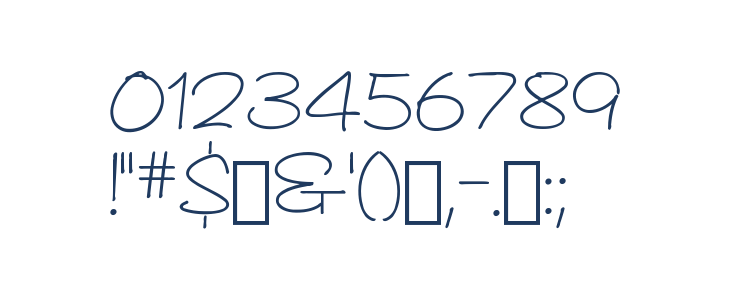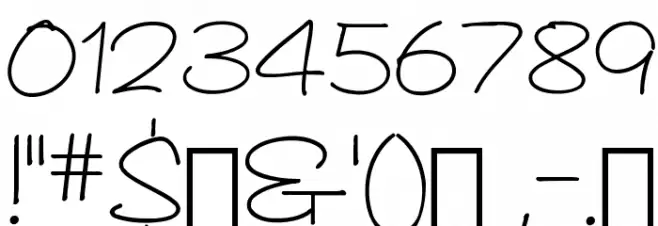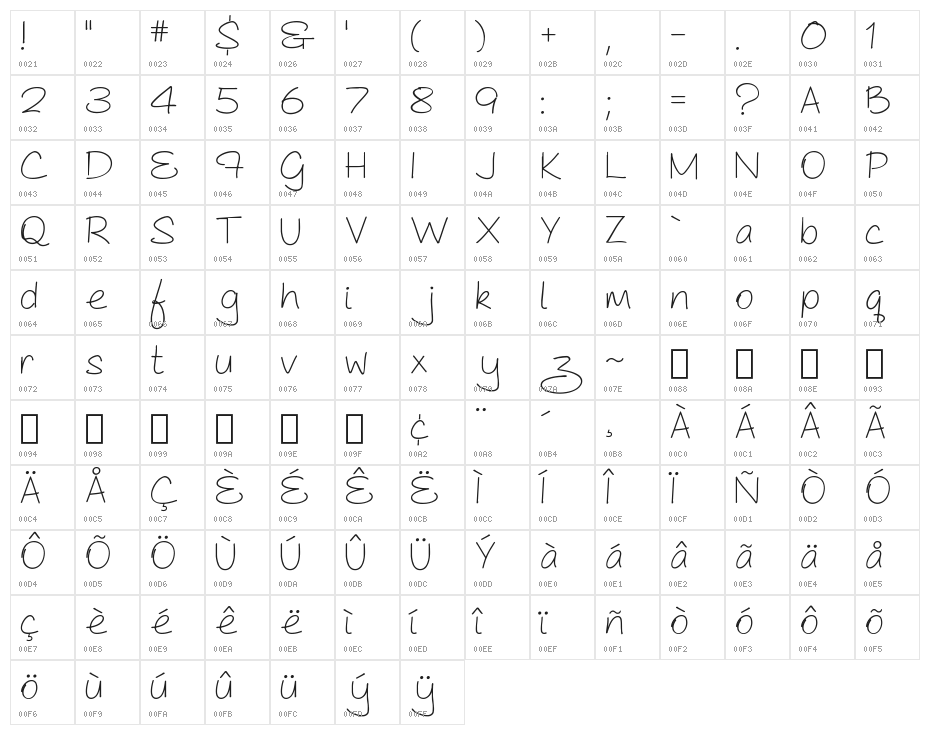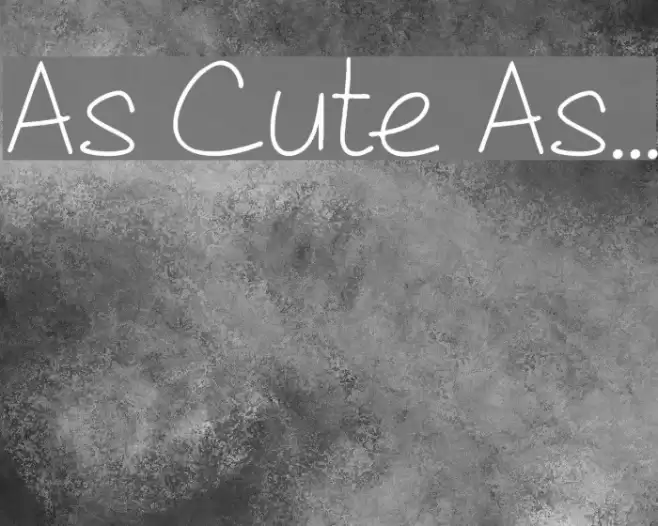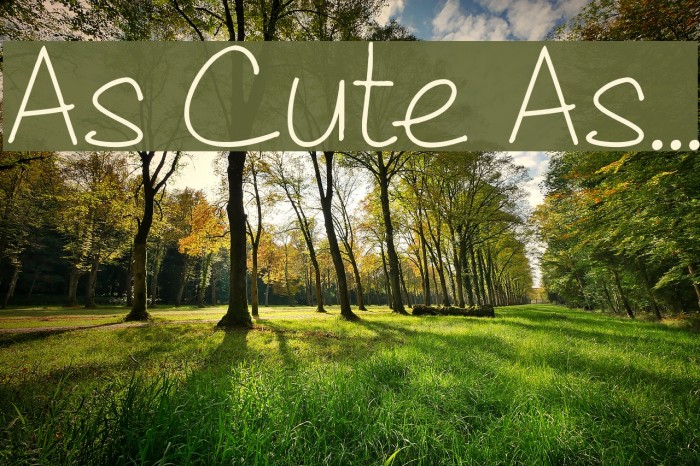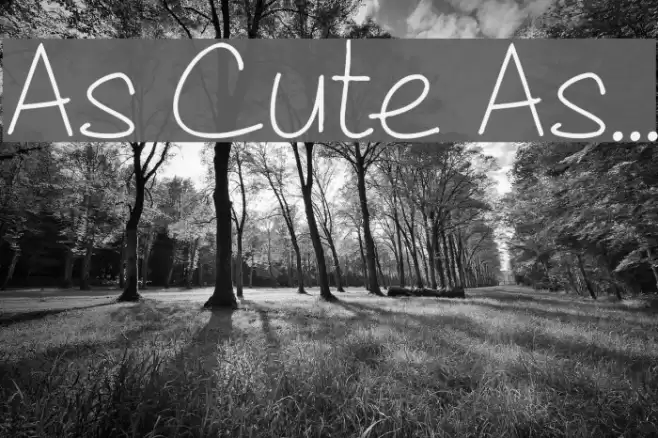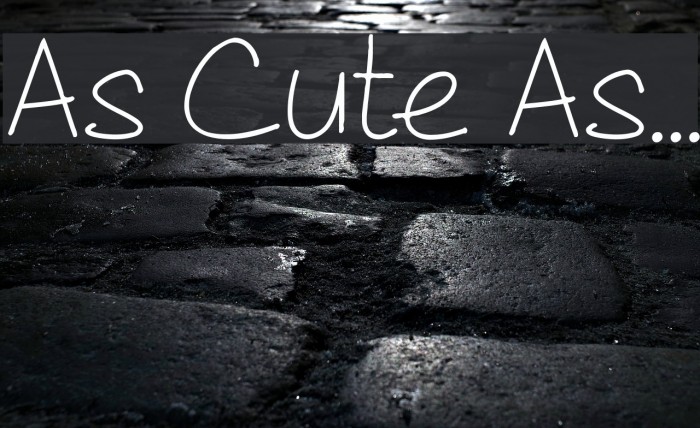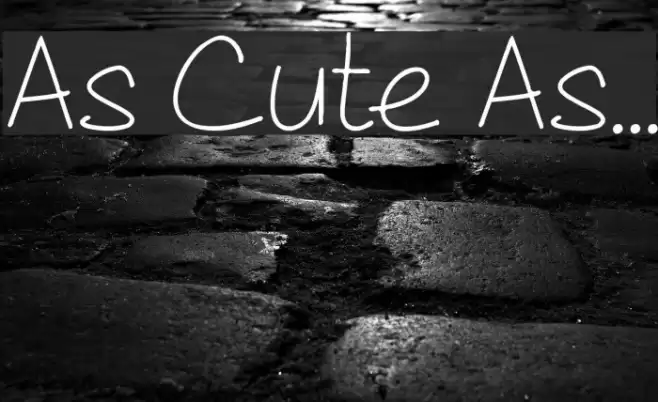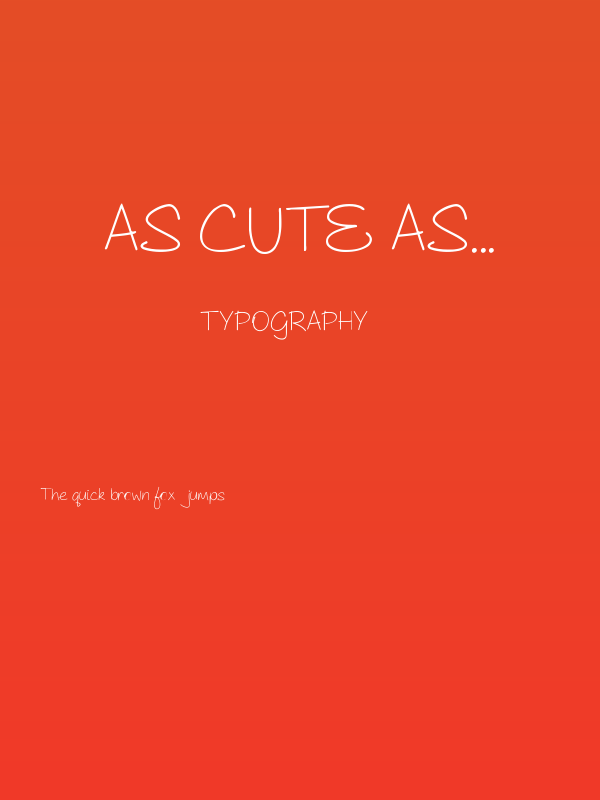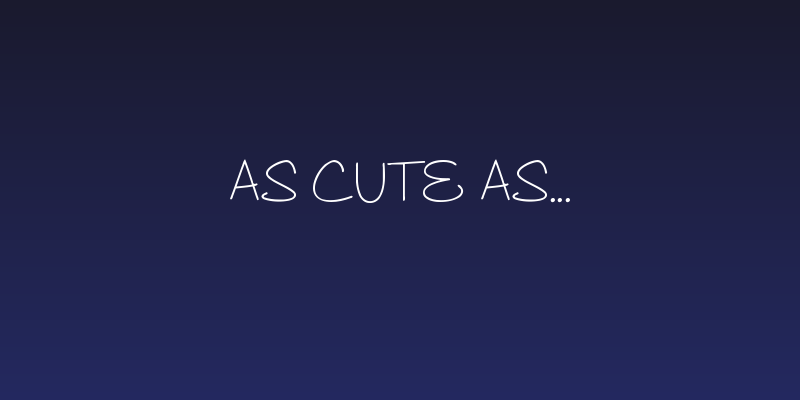
As Cute As... Font
As Cute As... Description
This font features a playful and casual handwritten style, characterized by its smooth, flowing lines and slightly irregular shapes. The letters have a whimsical and friendly appearance, with a consistent stroke width that gives it a uniform look. The uppercase letters are tall and narrow, while the lowercase letters are more rounded and open, providing a nice contrast. The numbers are clear and easy to read, maintaining the same playful style. Special characters are included, adding versatility for various uses. Overall, this font exudes a sense of fun and informality, making it ideal for projects that require a personal touch.